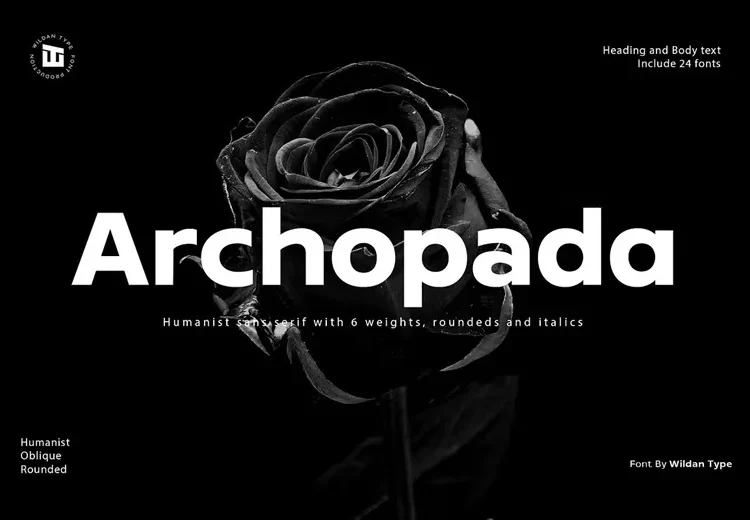
Archopada Font Family
Archopada is a fresh and expressive sans serif font family that combines humanistic warmth with geometric precision. Designed with a reduced line weight, it offers a clean yet engaging aesthetic, making it ideal for titles on portfolios, websites, magazines, branding, and ID cards. While it excels in bold, eye-catching headlines, its balanced proportions ensure readability even in longer paragraphs.
This versatile typeface includes six weights with oblique styles, as well as a rounded variant for a more playful touch. Featuring uppercase and lowercase letters, numerals, ligatures, and stylistic sets, Archopada provides flexibility for a wide range of design needs, from professional layouts to creative projects.